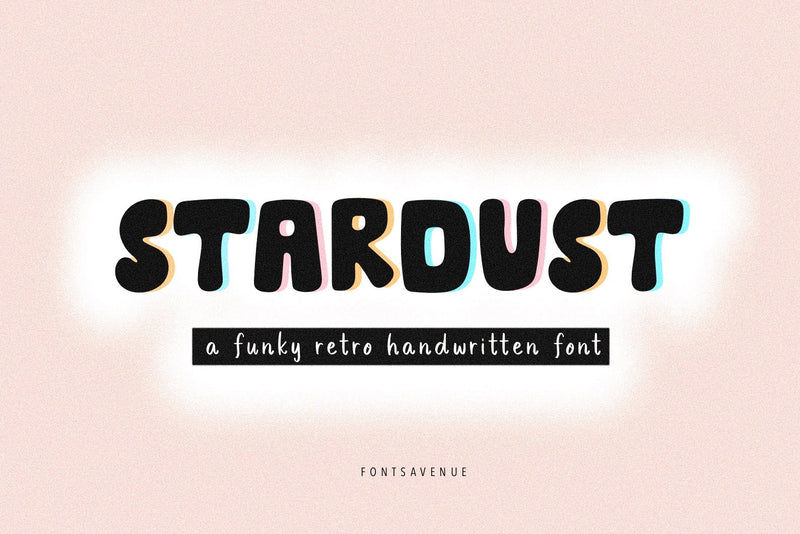
Stardust | Retro Uppercase Font
Stardust is a fun, funky and retro style handwritten font, perfect for logo design, invitations, quotes, procreate designs and much more!
Features
- Uppercase letters
- Accented characters